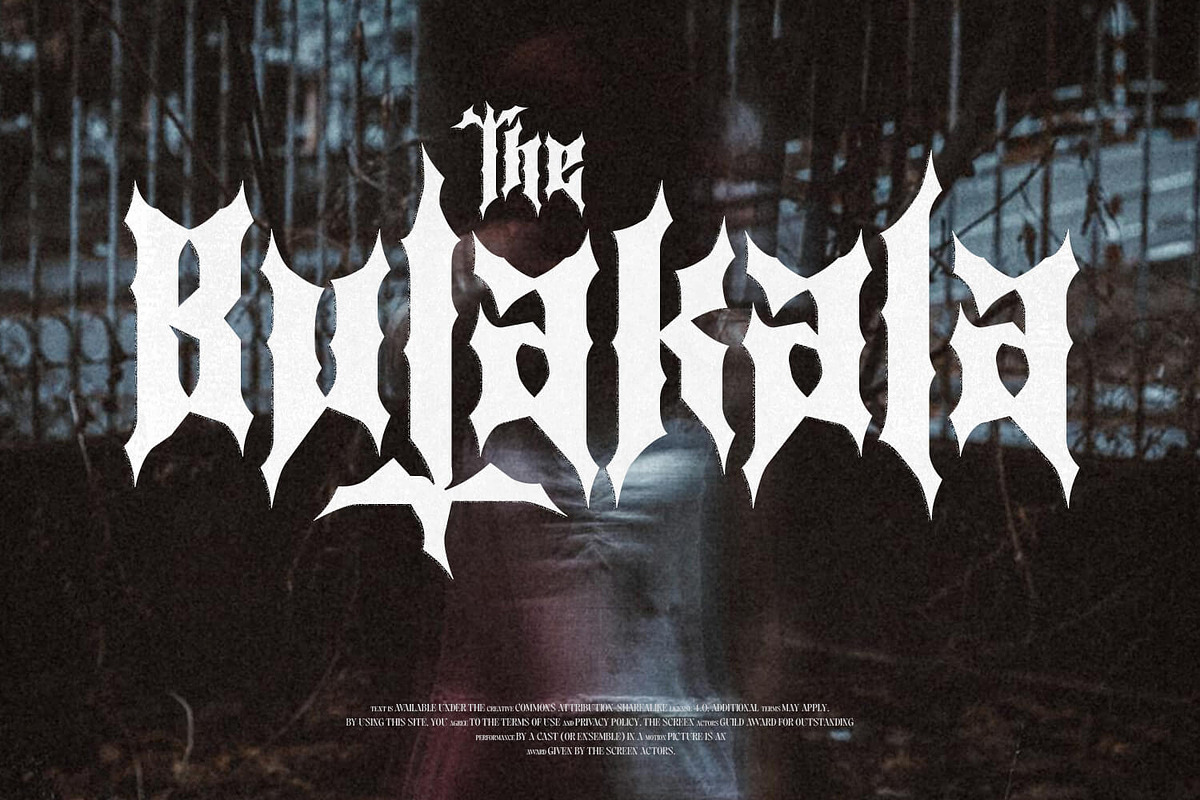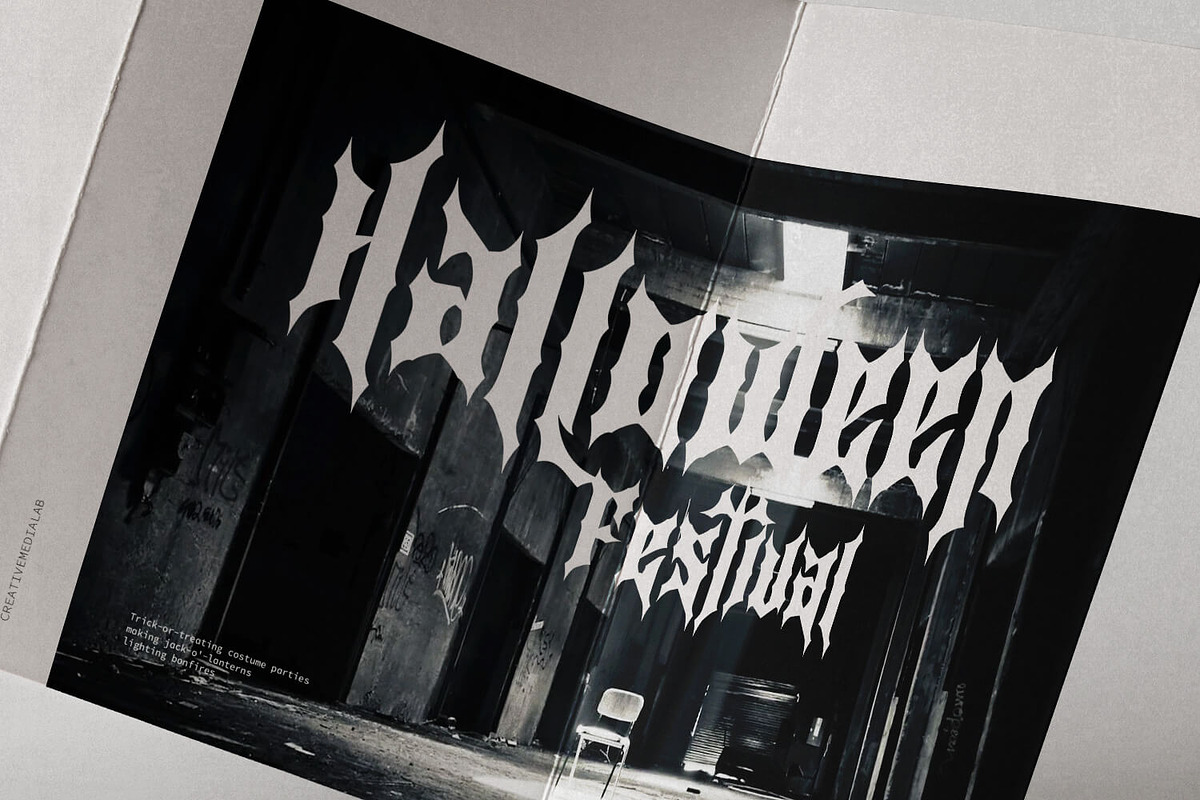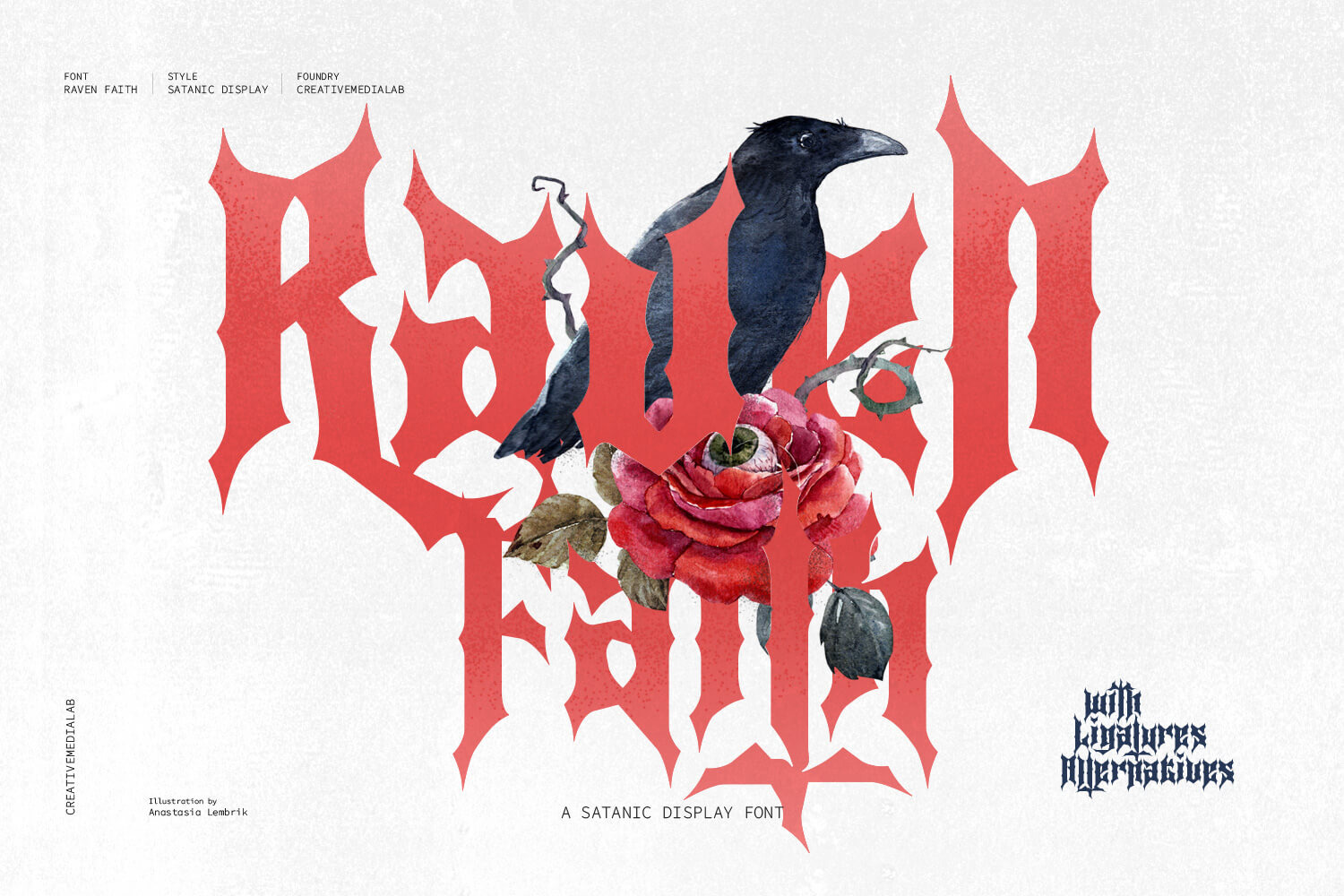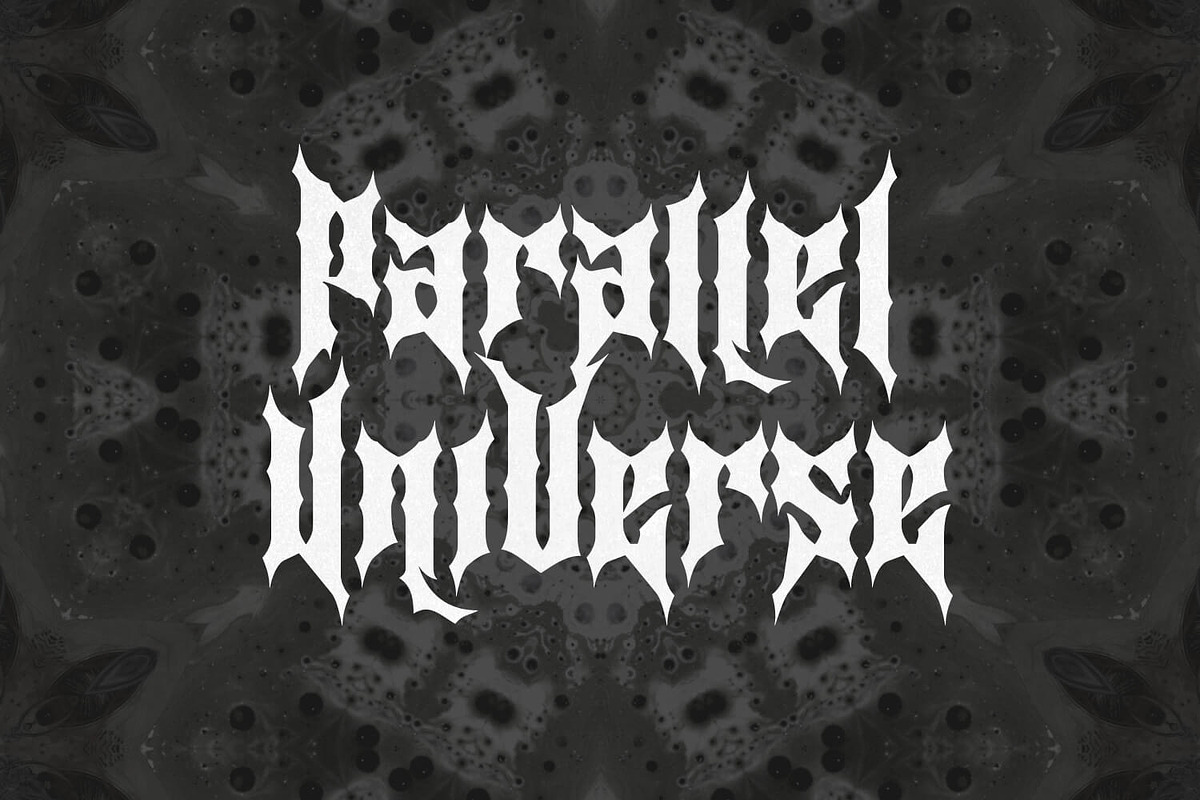
Raven Faith - a Satanic Display Font
Presenting Raven Faith a display font inspired by sharp rose thorns, has a horror impression, sharp angles also add a mystical impression and is ideal for use in designs with a Halloween or gothic theme.
Raven Faith has alternatives at the beginning and the end, as well as several ligatures that will provide options for your design.